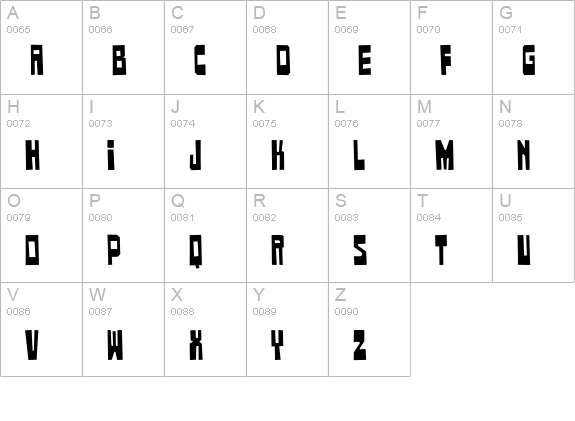
Buster-BoldCondensed Font Details
Introducing Buster-BoldCondensed font, a striking and dynamic typeface that exudes modernity and boldness. With its condensed style and strong, sharp lines, Buster-BoldCondensed commands attention and makes a statement in any design project. This stylish font is perfect for headlines, logos, posters, and any other design elements that require a powerful and impactful look. Its versatility allows it to be used in both digital and print media, adding a touch of sophistication and edge to any project. And the best part? Buster-BoldCondensed is available for free download at FontsMarket.com. So go ahead and elevate your designs with this eye-catching typeface without breaking the bank. Download it now and let your creativity shine with Buster-BoldCondensed!